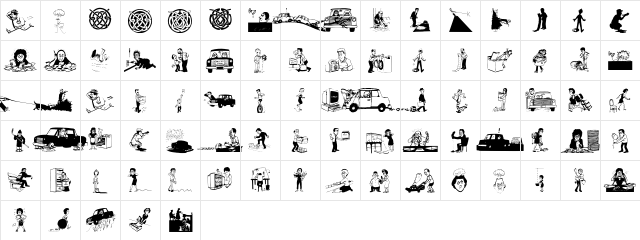
AllThatStress Regular
Design Context for AllThatStress Typeface
AllThatStress is a composed and adaptable typeface that performs quietly and consistently across a wide range of design contexts.